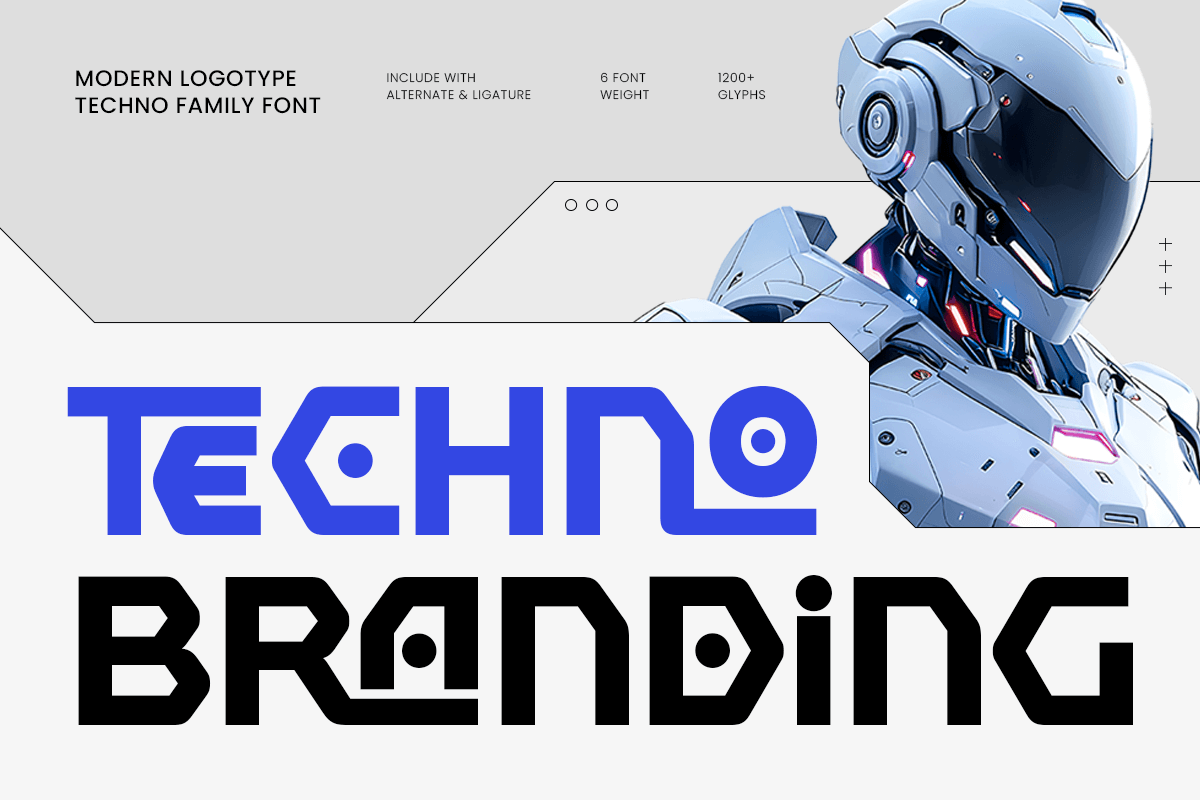
Techno Branding
-Modern Logo Techno Font Family
Techno Branding – Modern Logo Techno Font Family
TECHNO BRANDING is a modern logotype techno family font built to deliver a consistent, future-facing identity across brand systems. With clean geometry, sharp precision, and a confident tech vibe, this family is designed to make logos feel engineered, modern, and unmistakably digital.
Perfect for logotypes, brand identity, tech startups, product packaging, esports branding, app interfaces, and campaign headlines, TECHNO BRANDING supports both bold statements and refined, minimalist layouts. Use it for website headers, UI design, social media creatives, posters, signage, and modern editorial covers where clarity and innovation matter.
Designed as a versatile family, TECHNO BRANDING helps you keep your typography consistent across different sizes and platforms—making it an ideal choice for professional branding toolkits that need a strong, cohesive techno personality.
TECHNO BRANDING – Modern Techno Family Features
• Modern techno family built for logotypes and branding systems
• Available with 6 styles: Light, Regular, Bold (And italic for each Weights)
• Clean geometric letterforms with futuristic energy
• Ideal for logos, headlines, packaging, UI/UX, and posters
• Professional feel for tech, AI, gaming, and digital brands
• Great readability for both digital and print projects
• OpenType features for flexible, polished typography
Build a cohesive futuristic identity with TECHNO BRANDING—made for modern logotypes and tech-first branding. 🚀✨